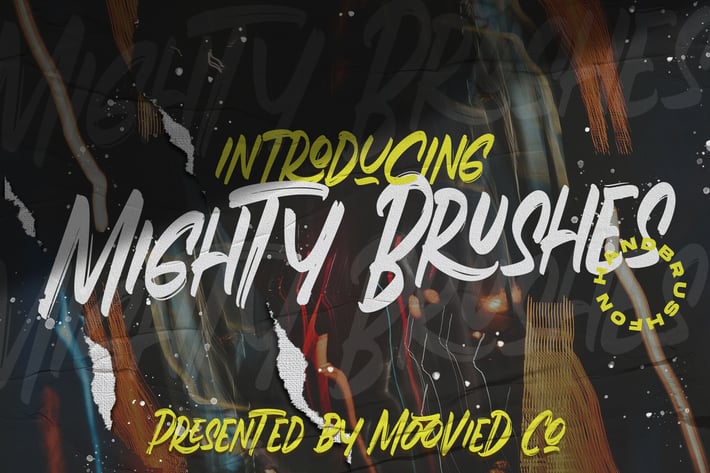
Mighty Brush Font
Mighty Brush is a script handwritten brush font. Its unique flow and style makes it perfect to use for prints, logos, logos & branding, invitations, stationery, wedding designs, social media posts, advertisements, product packaging, product designs, labels, photography, watermarks, special events or anything.
Basic Latin A-Z and a-z
Symbols
* Kerning